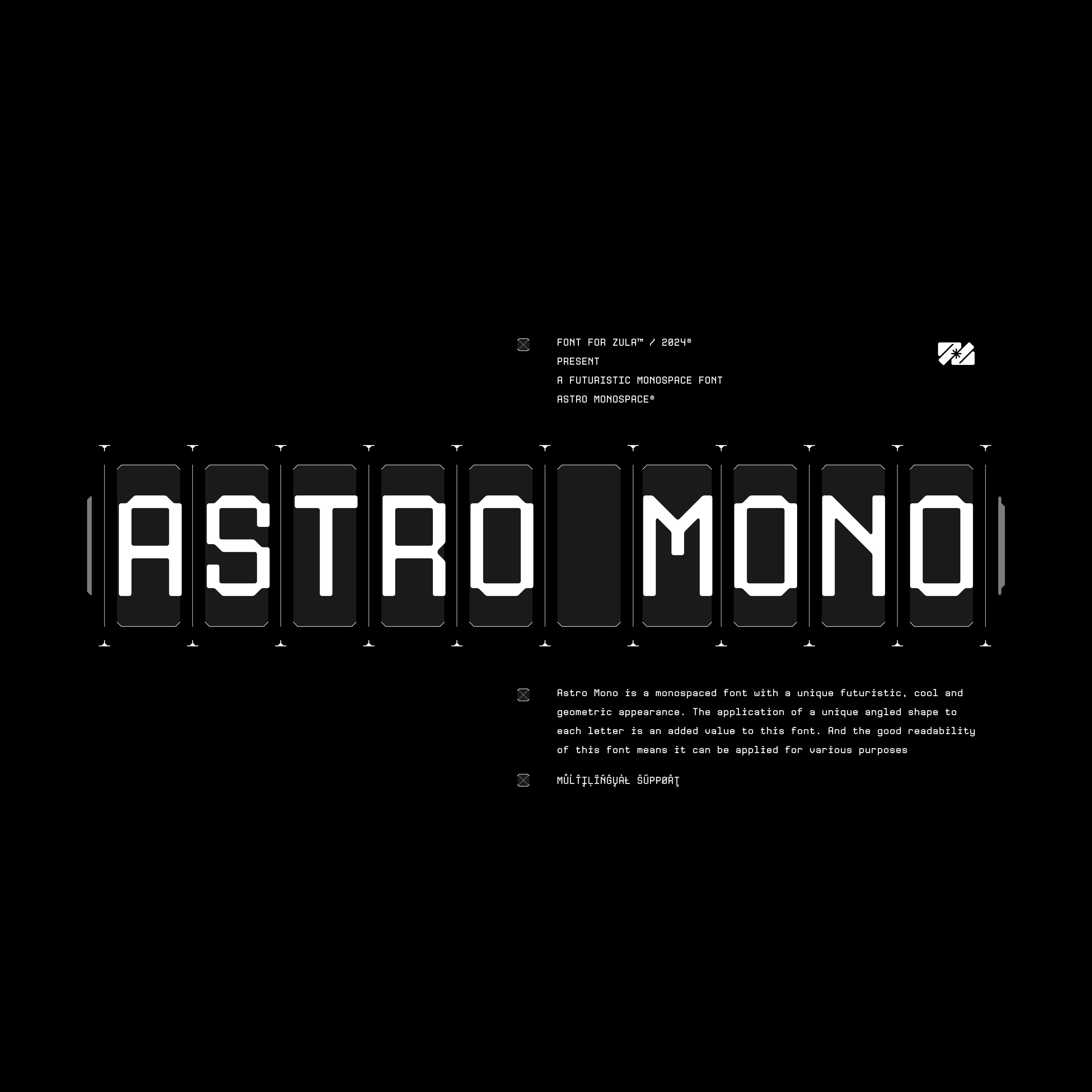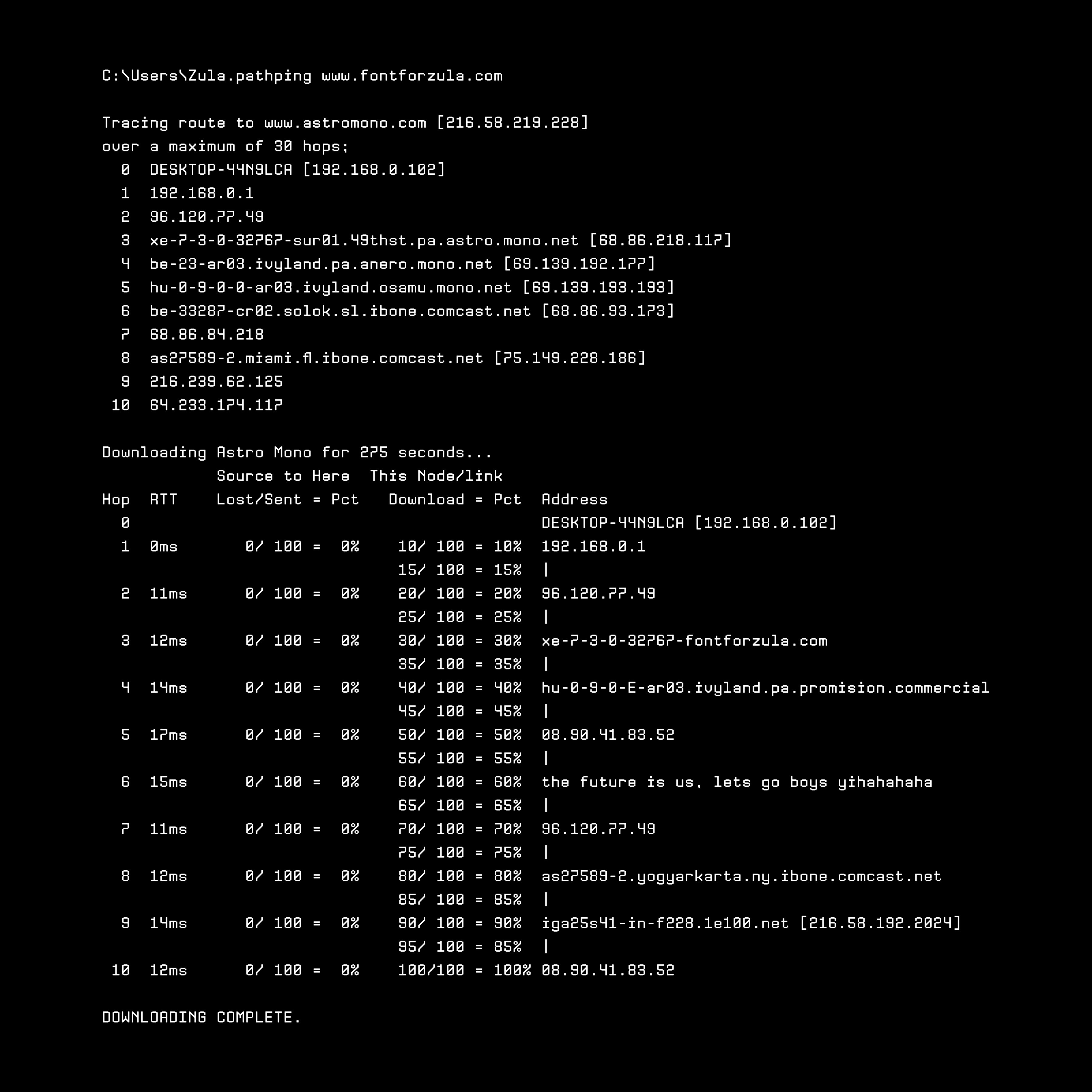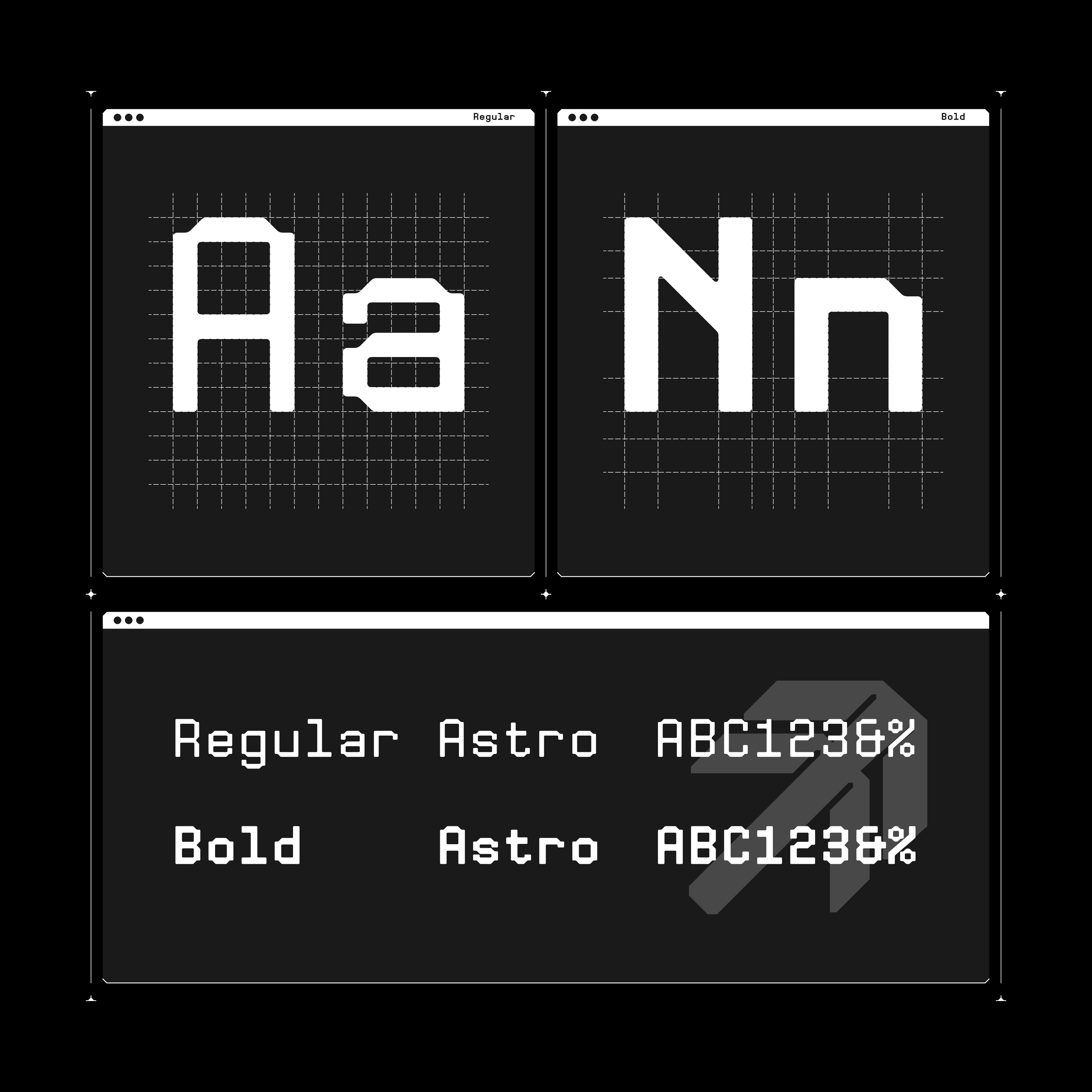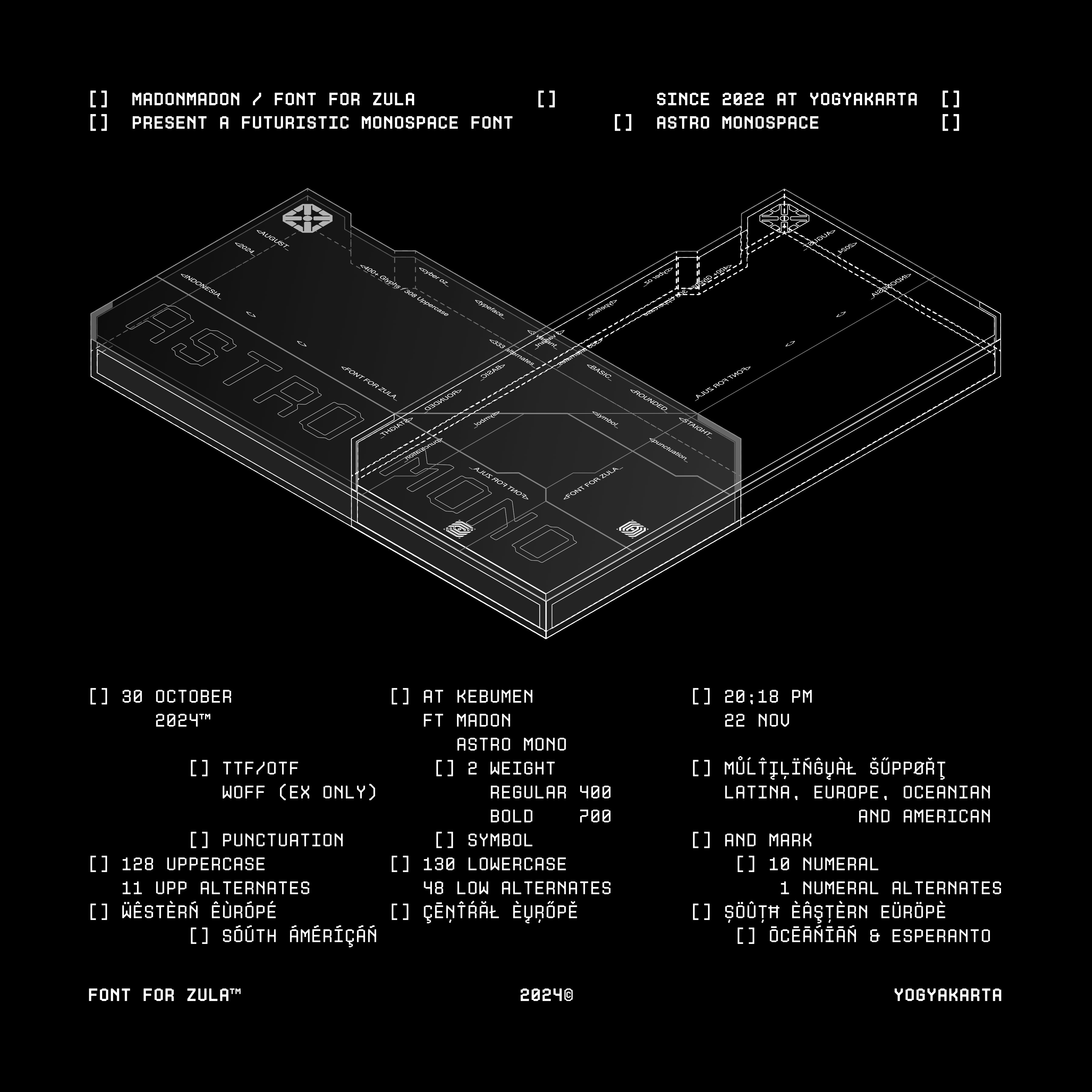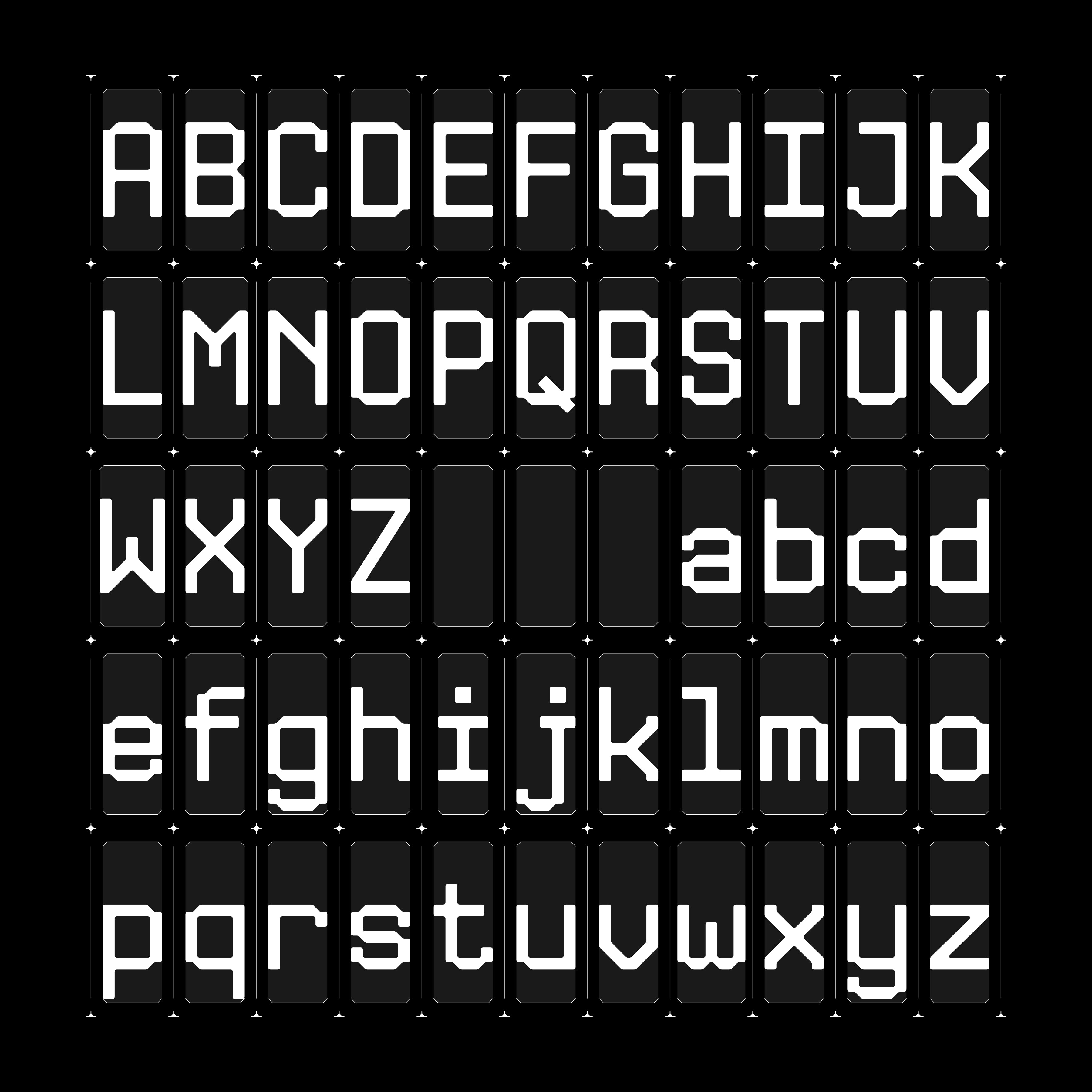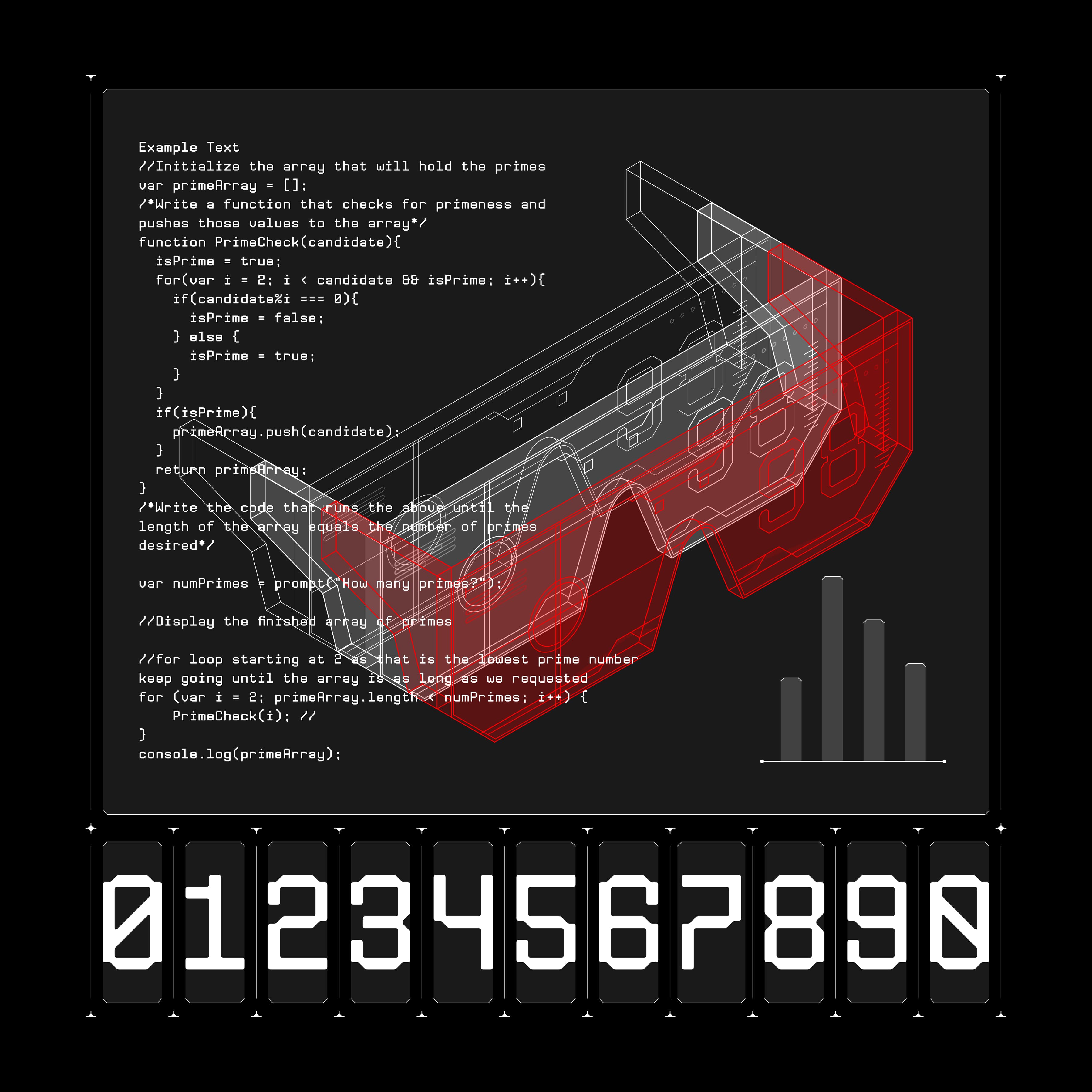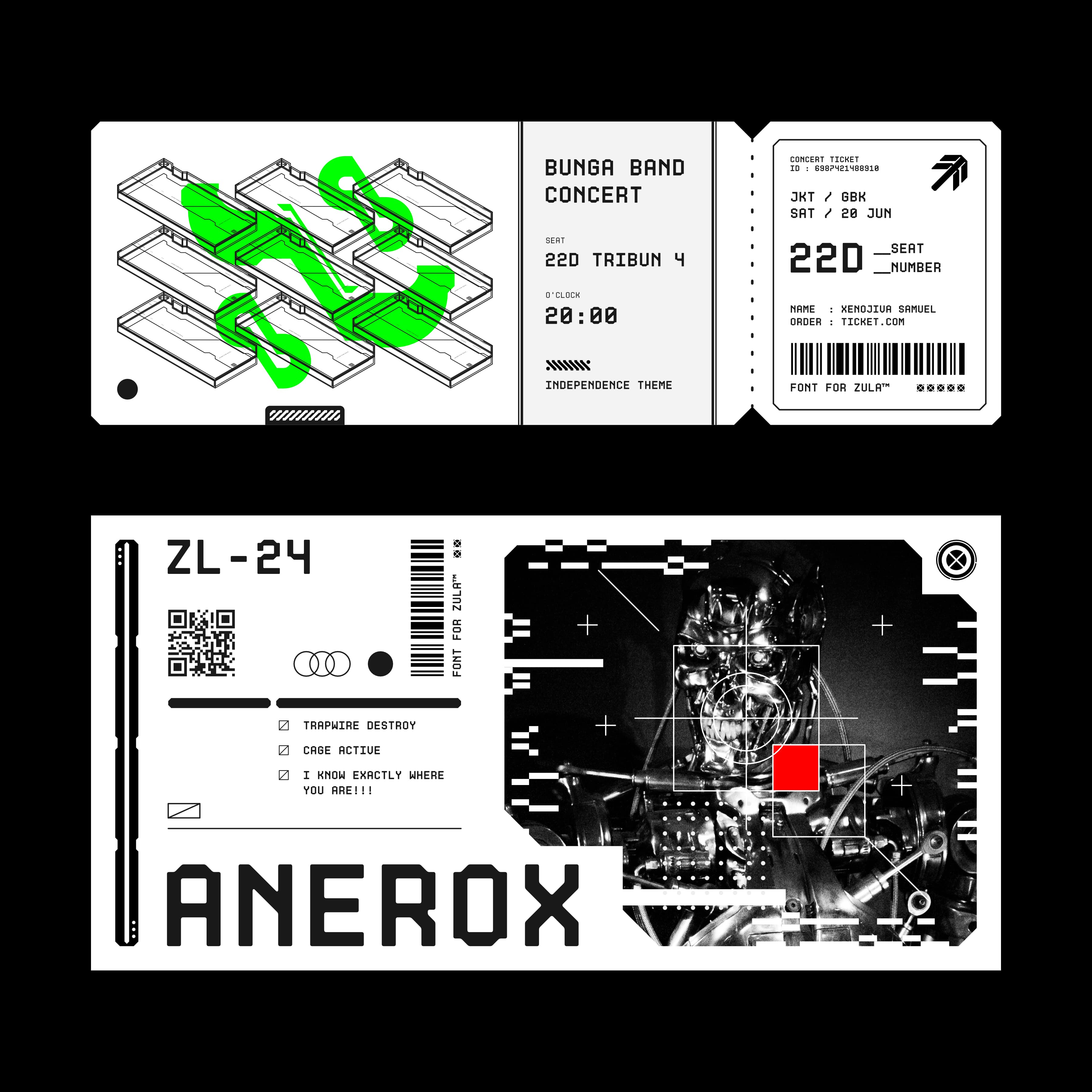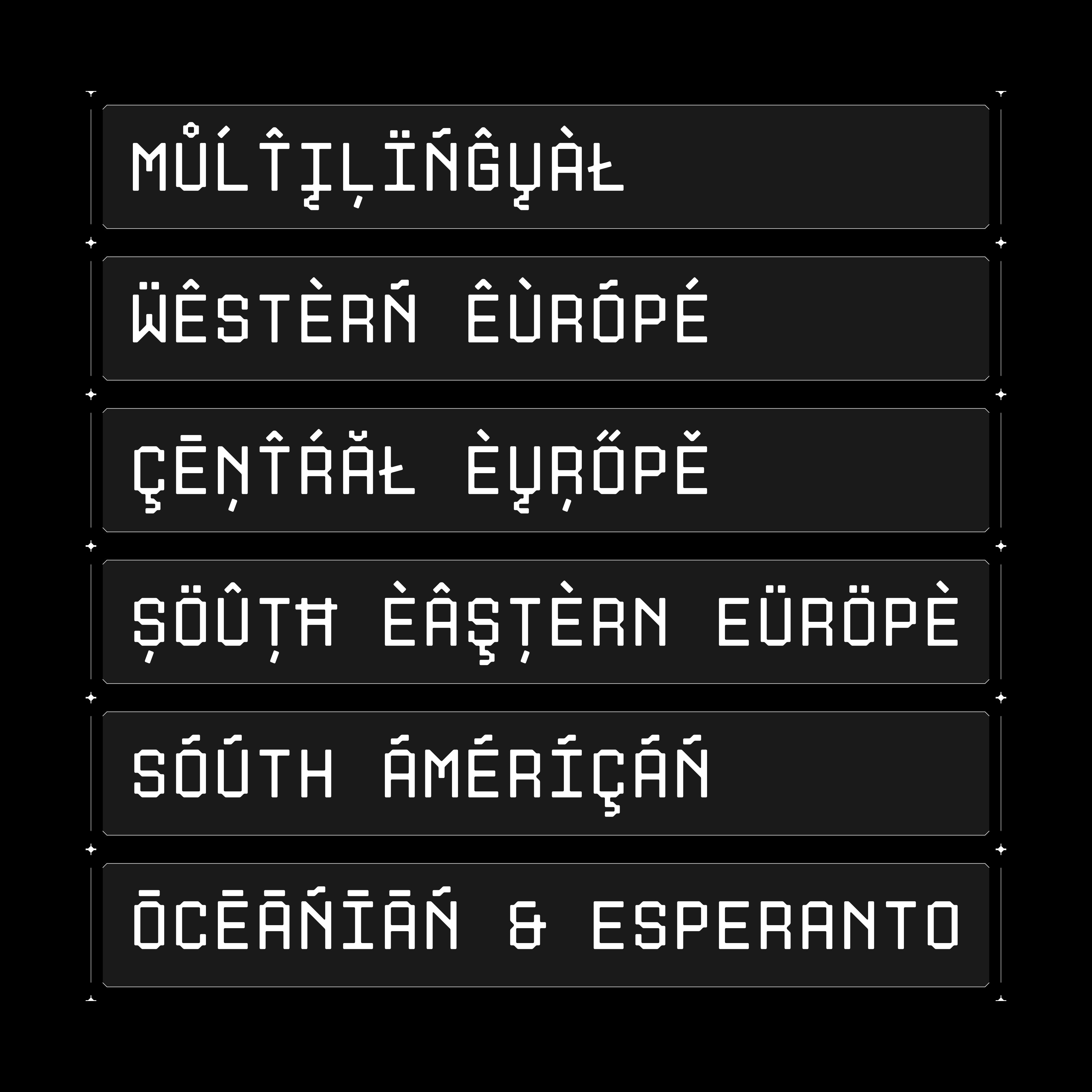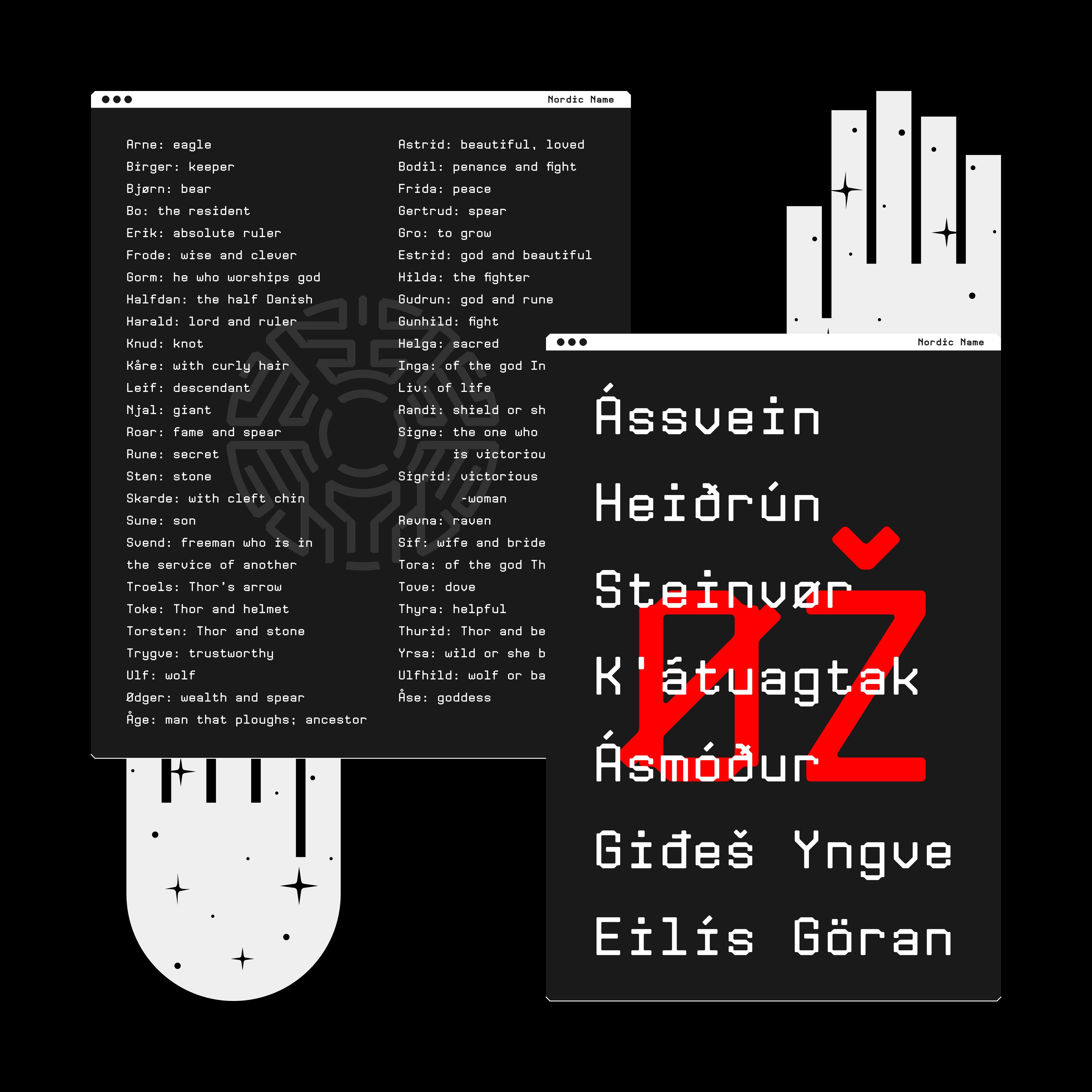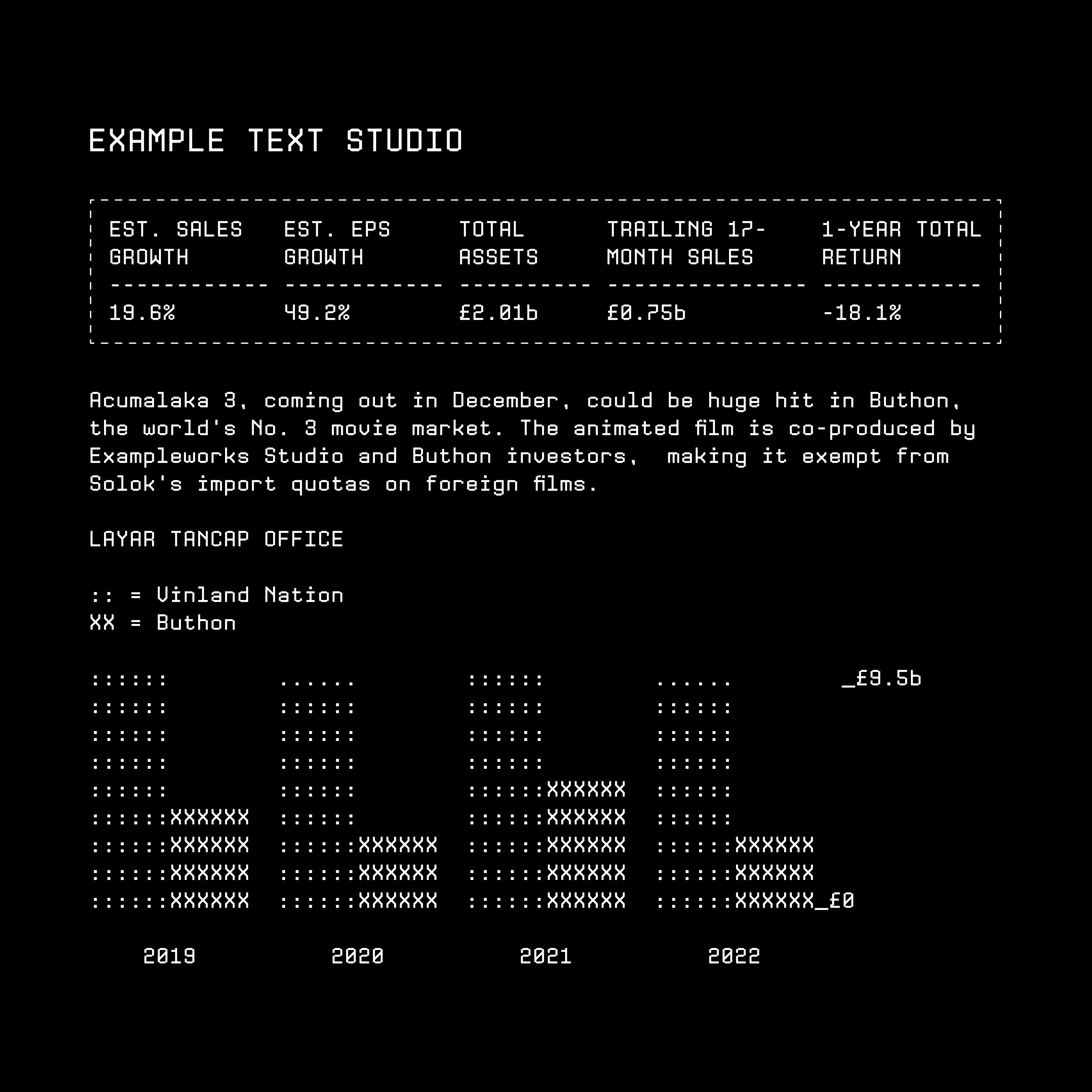
Astro Mono Font Family
The Astro Mono Font Family is a monospaced typeface featuring a futuristic geometric design, offering over 450 glyphs and more than 60 alternative letters. It includes TTF/OTF and WOFF formats, supports multiple languages, and comes in two weight styles: Regular and Bold.
Ideal for modern graphic design and futuristic branding projects. Perfect for posters, website typography, and sci-fi themed merchandise, ensuring exceptional readability and a unique geometric aesthetic.